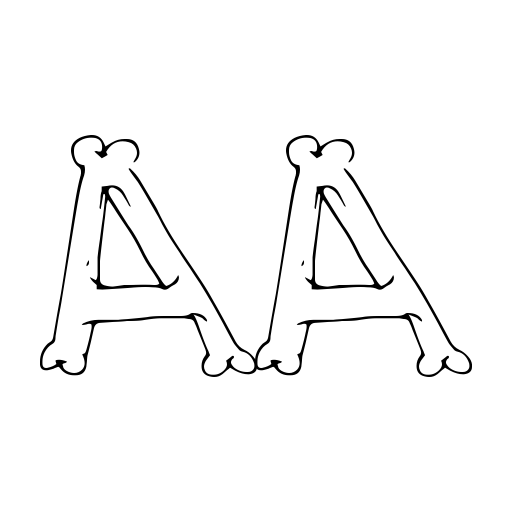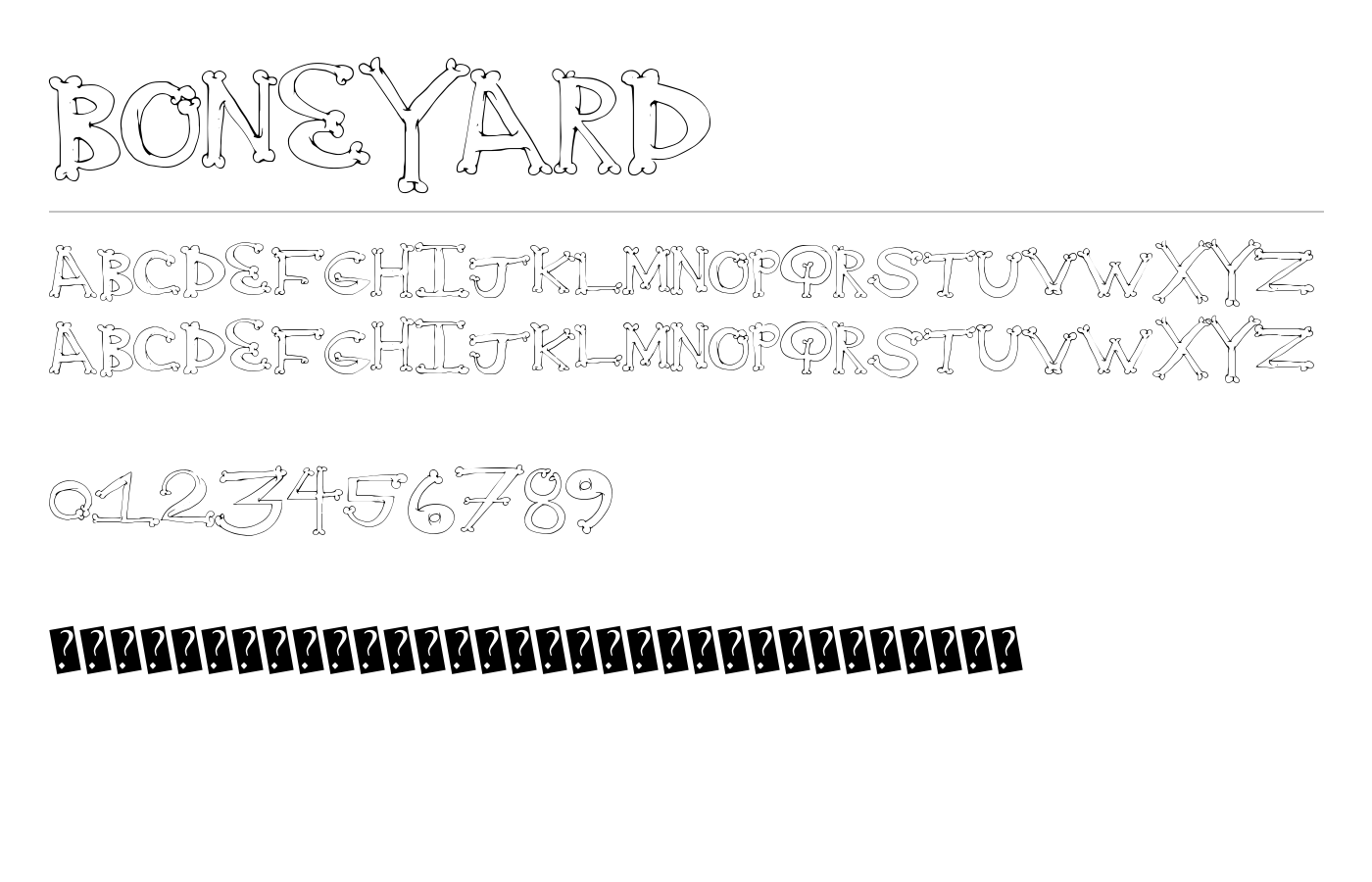
BoneYard is a playful, decorative display font featuring uppercase letters designed to resemble bones, giving it a quirky and spooky personality. Its thin, outlined strokes and whimsical shapes make it ideal for Halloween-themed projects, posters, or children’s content where a fun yet eerie vibe is desired. This font stands out in headlines and titles rather than body text, adding character and a memorable touch to creative branding and event materials.
| Font family | BoneYard Font |
| Designer | Max Infeld |